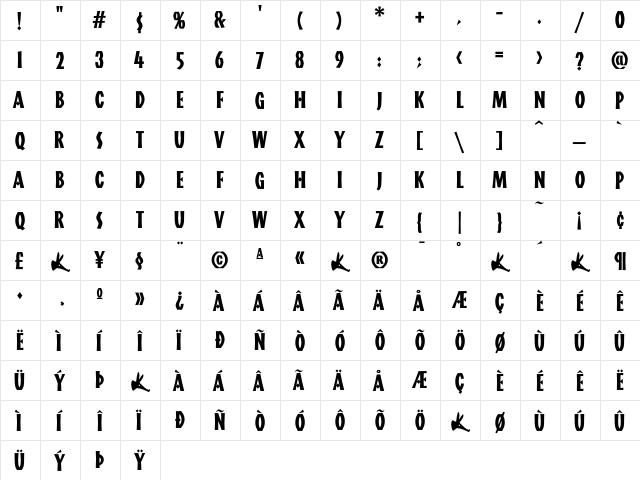
Aardvark Regular Font Preview
Aardvark Regular
Aardvark Regular Font Details
Design Context for Aardvark Typeface
Aardvark offers clean, dependable letterforms without strong stylistic allegiance, making it a practical choice for designers who need flexibility.
Pro Tip: Use Aardvark in both headline and body roles to test its range before committing to a single application.